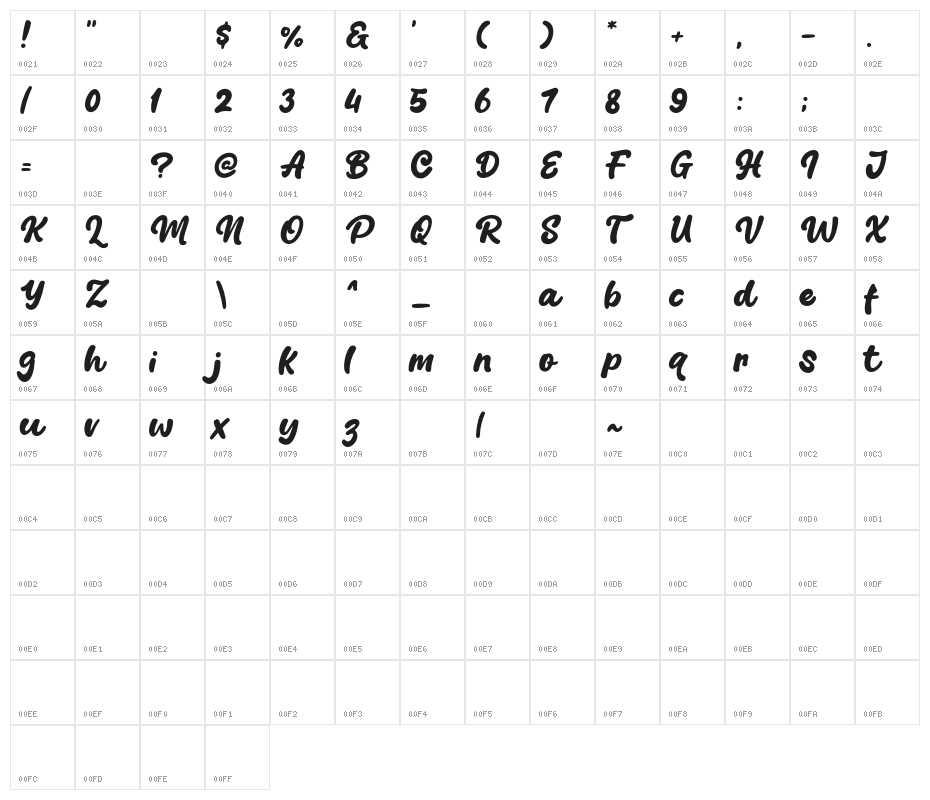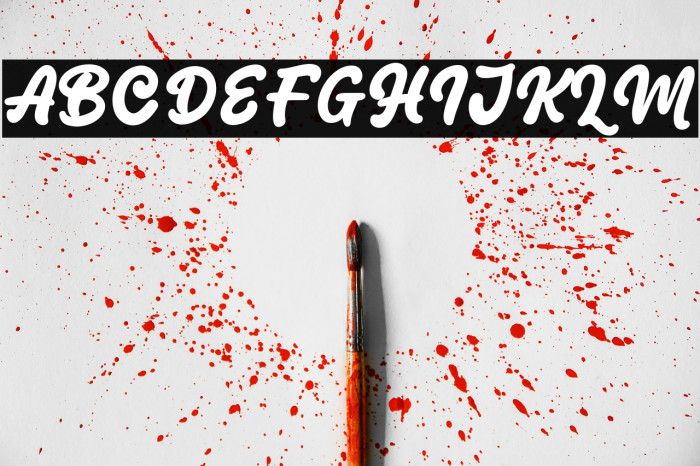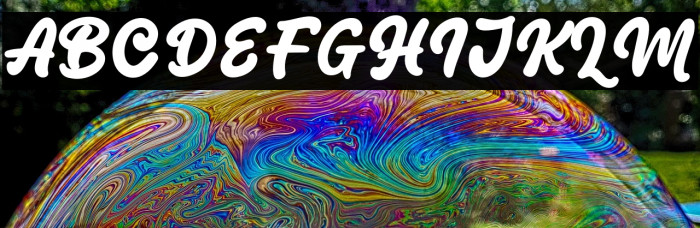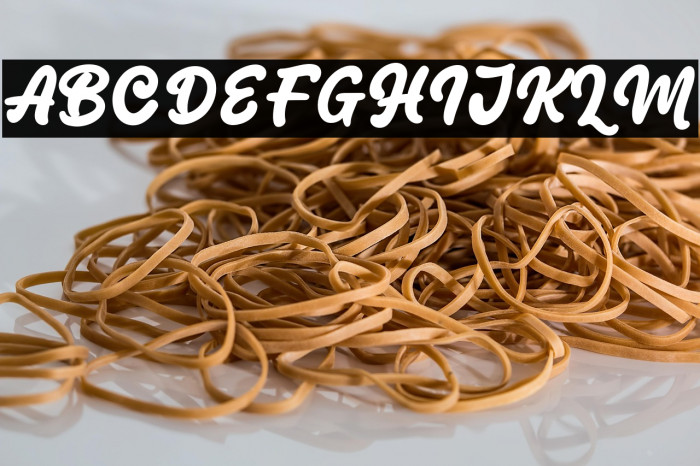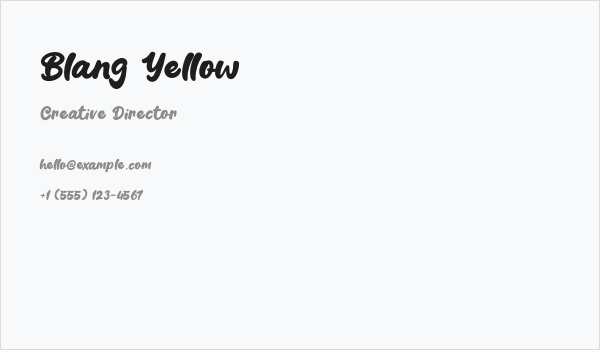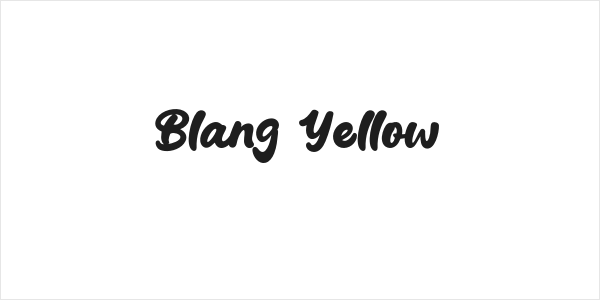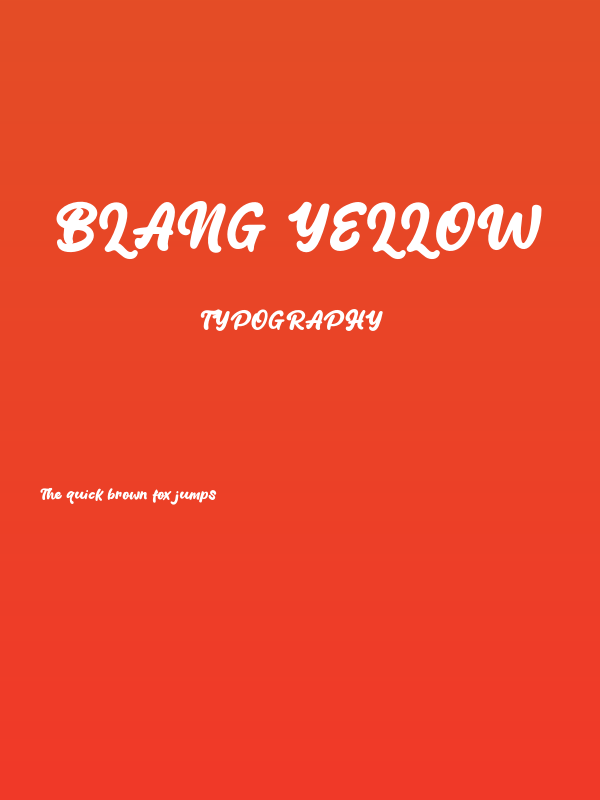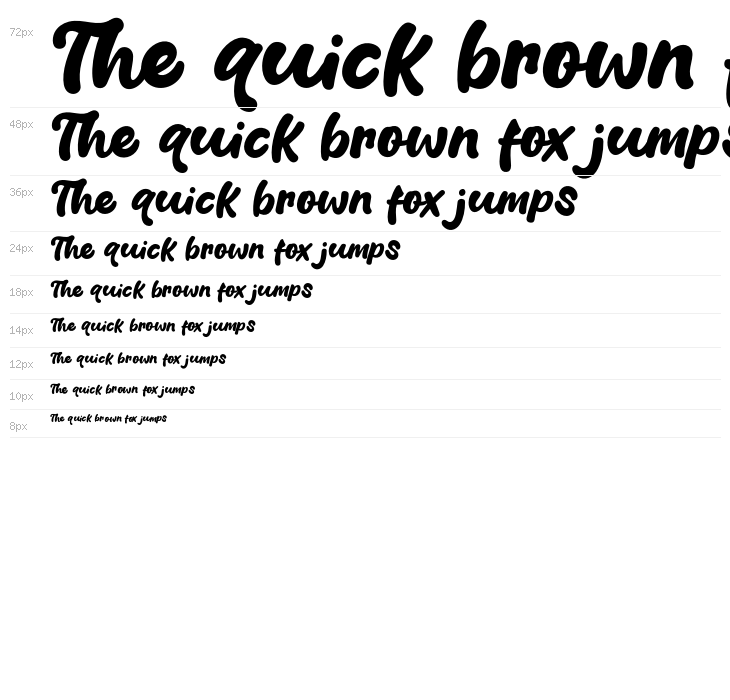
Blang Yellow Font
Blang Yellow Description
This font features a bold, cursive style with a playful and energetic appearance. The letters are rounded and connected, giving it a flowing and dynamic look. The uppercase and lowercase letters maintain a consistent style, with a slight slant that adds to the casual and friendly feel. The numbers and special characters are designed to match the overall aesthetic, ensuring a cohesive look across all elements. The thick strokes and smooth curves make it highly legible while retaining a distinctive personality.